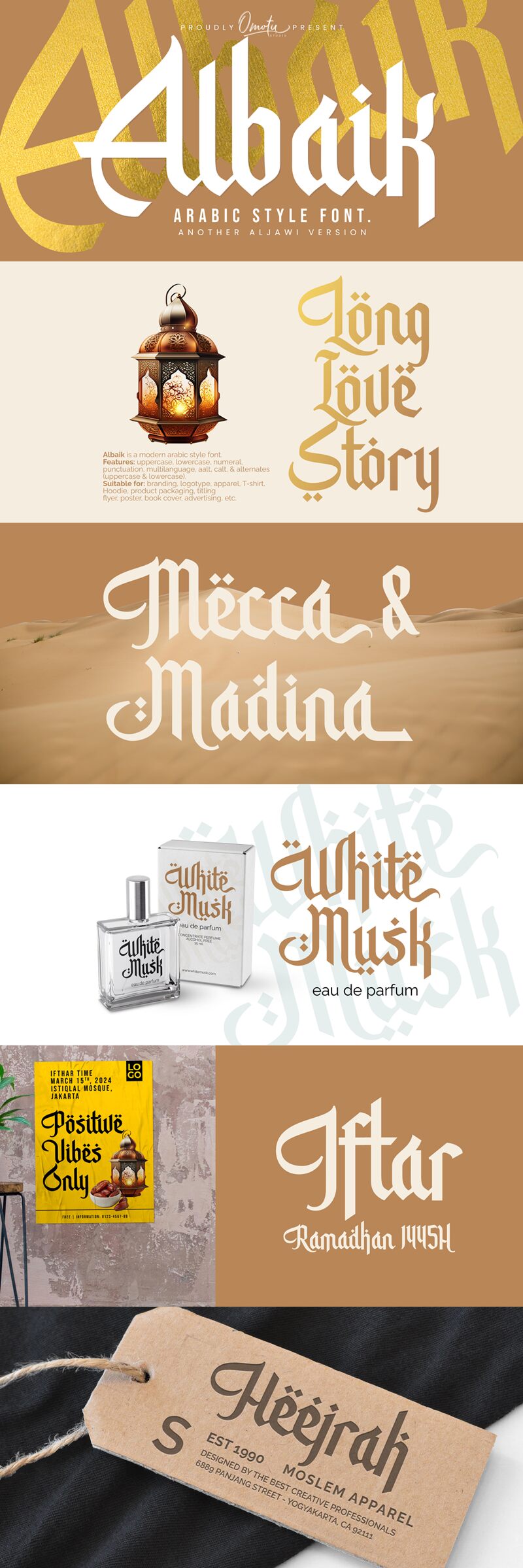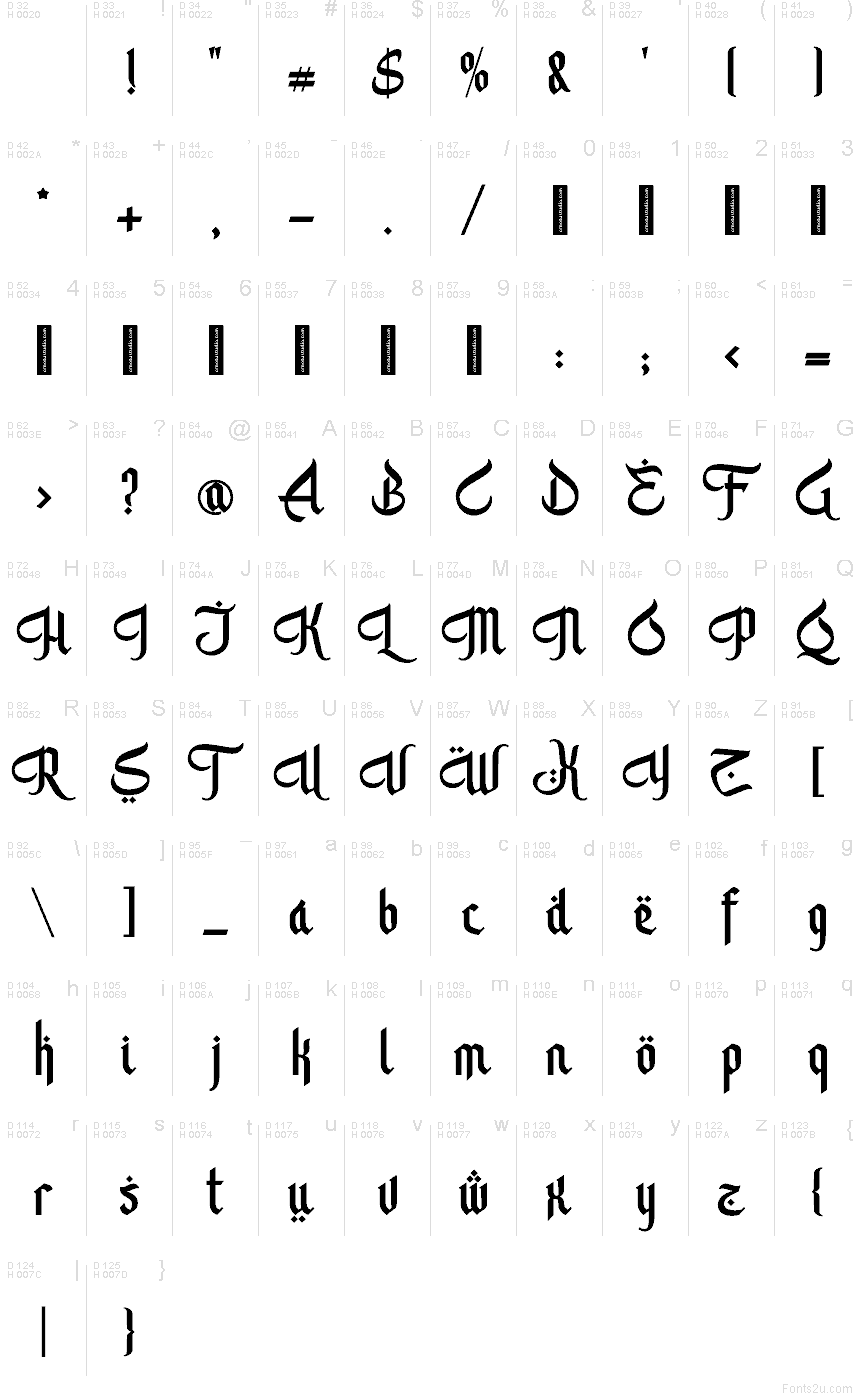
Albaik
Albaik font by Omotu Studio is a free foreign faux arabic font that twists Latin letterforms into flowing, calligraphic shapes. Bold, inky strokes bend and hook like traditional Arabic script, while staying sharp enough to read at a glance. The result feels both exotic and grounded: those thick verticals anchor the eye, and the angled cuts give words a dramatic, almost ceremonial presence on the page.
Using Albaik, you can instantly evoke Middle Eastern flair in restaurant branding, food packaging, hookah lounge signage, festival posters, event invitations, or themed social media graphics. This free font works beautifully as a dominant logotype or headline, especially when paired with a clean geometric sans serif for supporting text to keep everything legible and balanced.